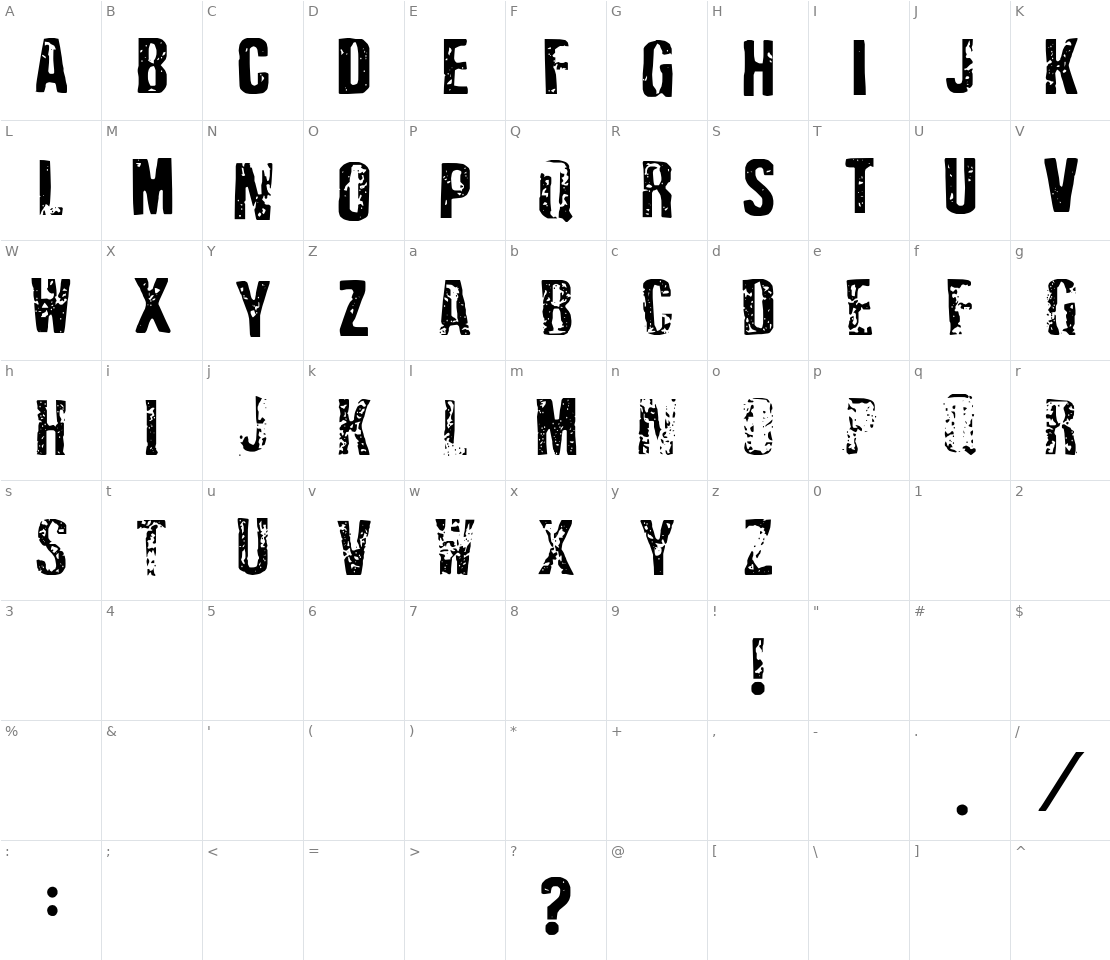
Depressionist Three
Depressionist Three is a condensed, heavily distressed display face from MR.FISK FONTS that looks like it was printed on a broken press and left in the rain. The bold letterforms carry serious weight, but the rough, eaten-away texture keeps things from feeling too clean or controlled. Built for posters, gritty editorial work, and dark-themed headlines where you want type that feels genuinely weathered and uneasy.